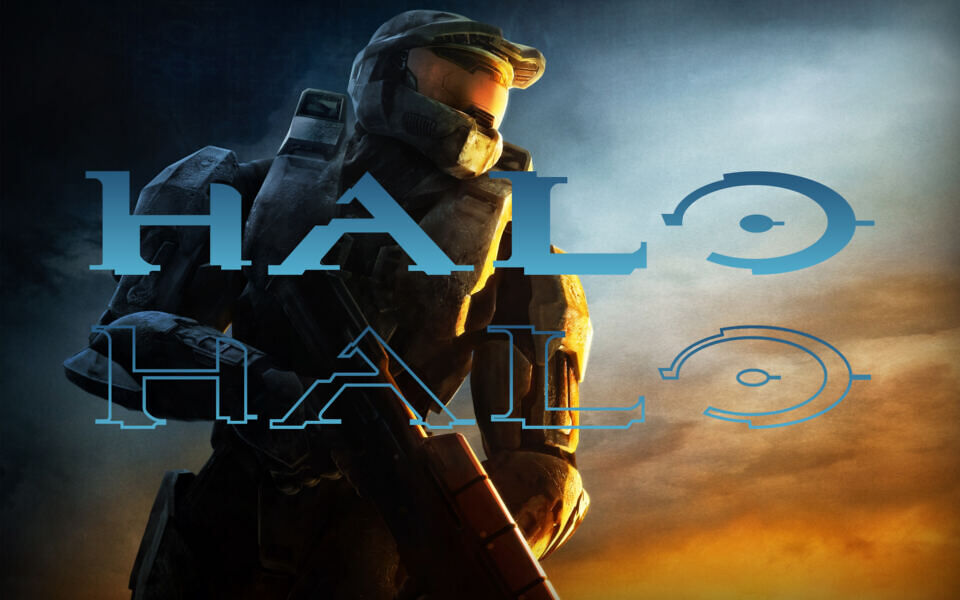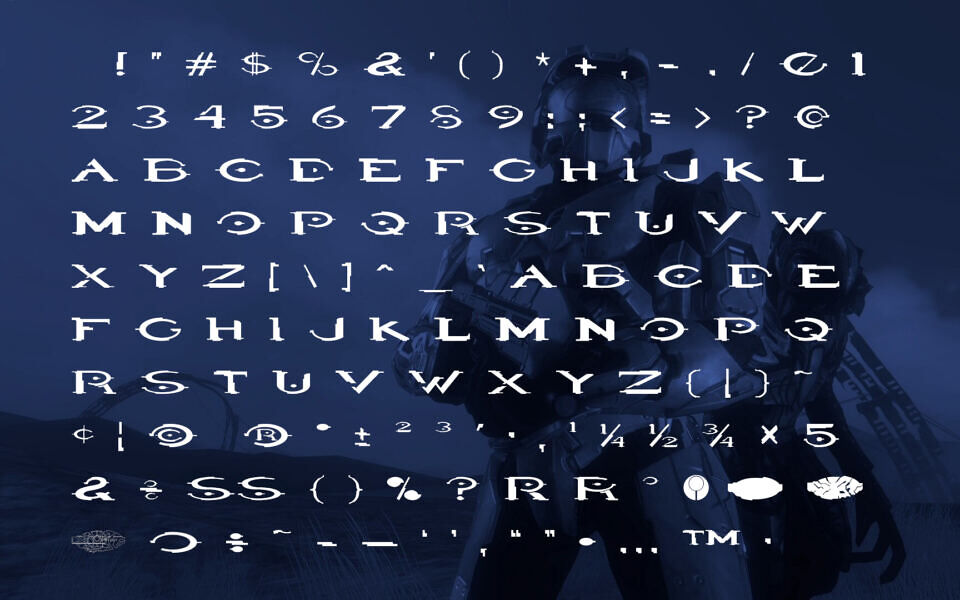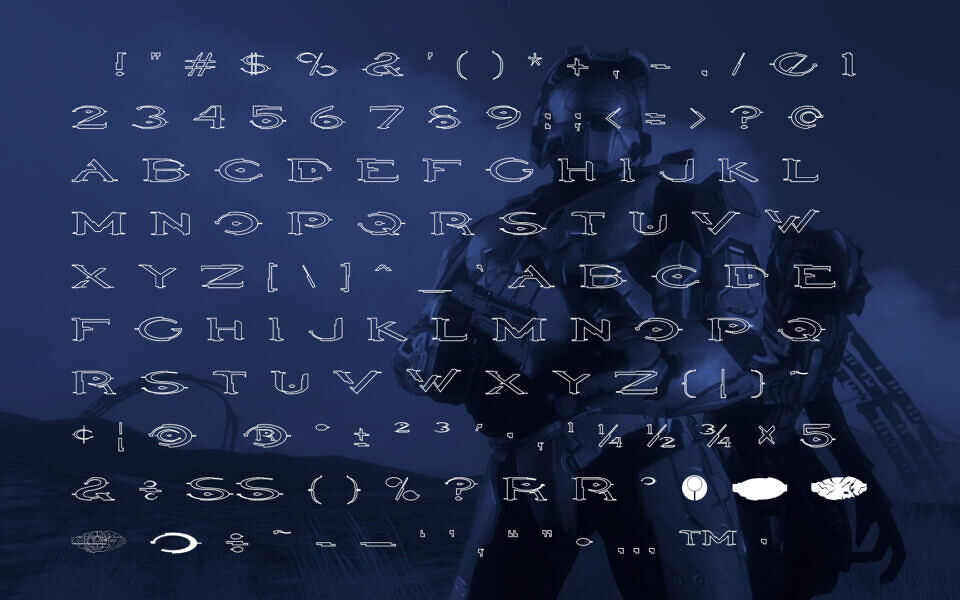
Halo Logo Font
Evoking the iconic aesthetic of legendary sci-fi gaming, this typeface captures the aggressive, futuristic precision of the classic Halo series. Its structure balances hard-edged geometric stability with distinct, angular motifs, making it perfect for high-impact logos and titles.
Whether you are crafting personal products like t-shirts, its bold presence commands immediate attention. This font transcends simple typography, serving as a visceral homage to space-age design that remains as sharp and definitive as the tactical combat it once defined.